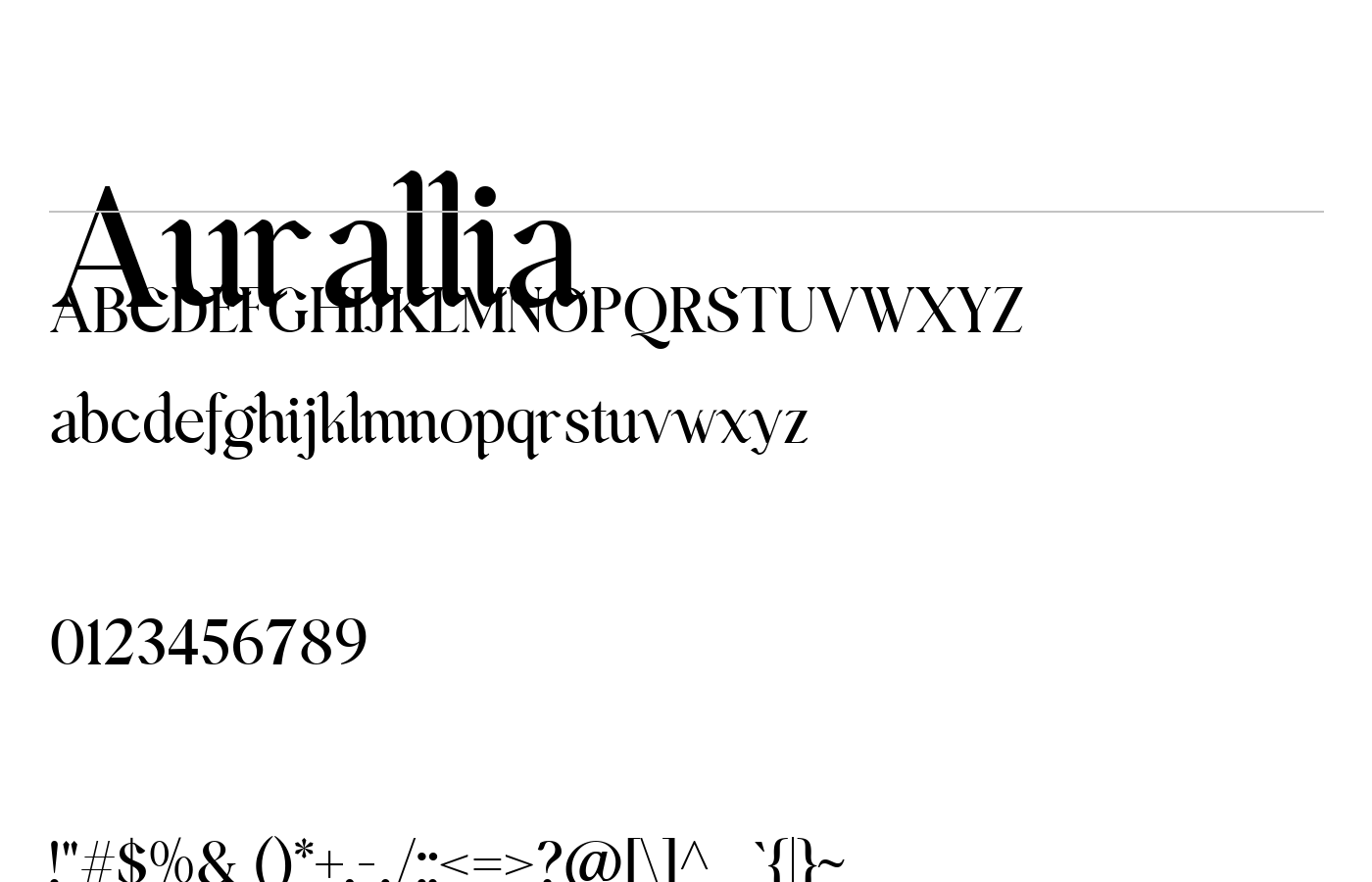
Aurallia is an elegant serif font characterized by high contrast between thick and thin strokes, a tall x-height, and refined bracketed serifs that give it a classic yet sophisticated appearance. Its delicate, sharp letterforms with distinctive details such as the pointed terminals and graceful curves make it ideal for luxury branding, editorial design, and high-end logos. This font works best in headlines and display text where its stylish personality can shine, lending a timeless and graceful feel to any project.
Aurallia Font